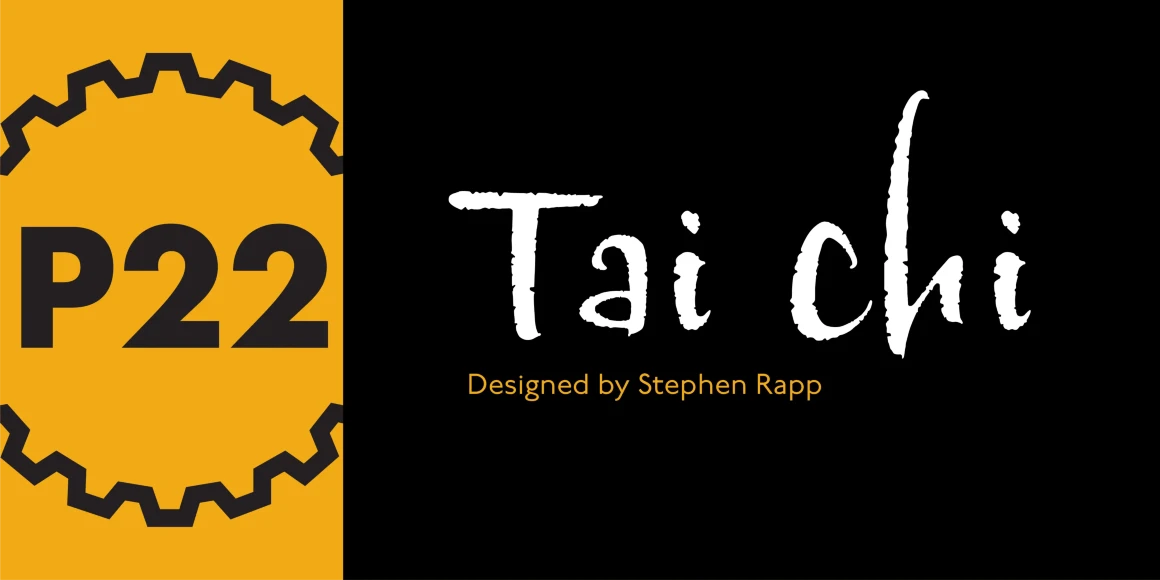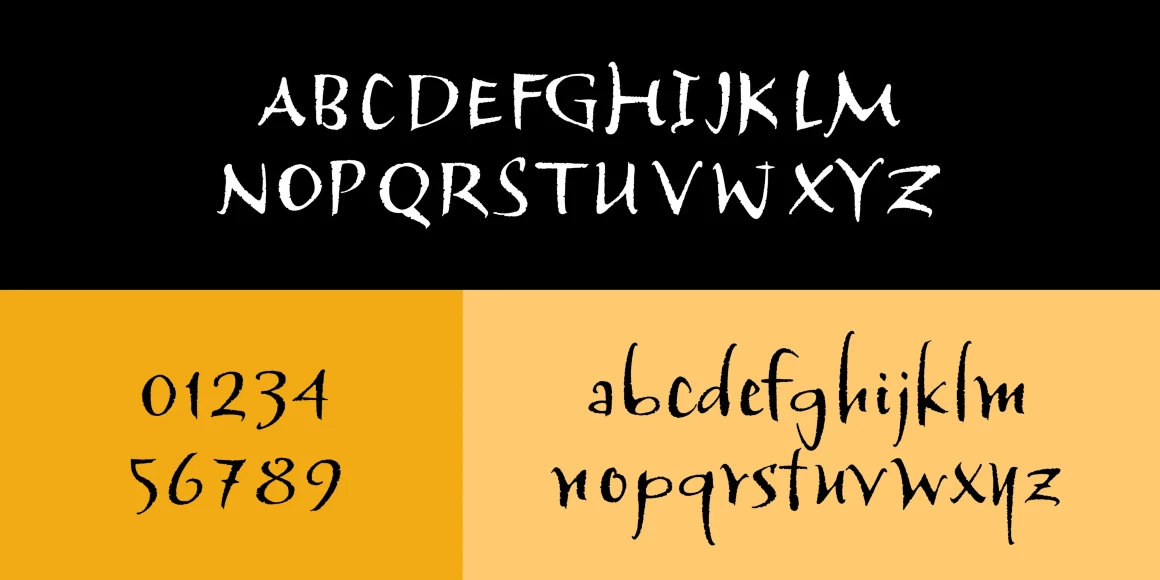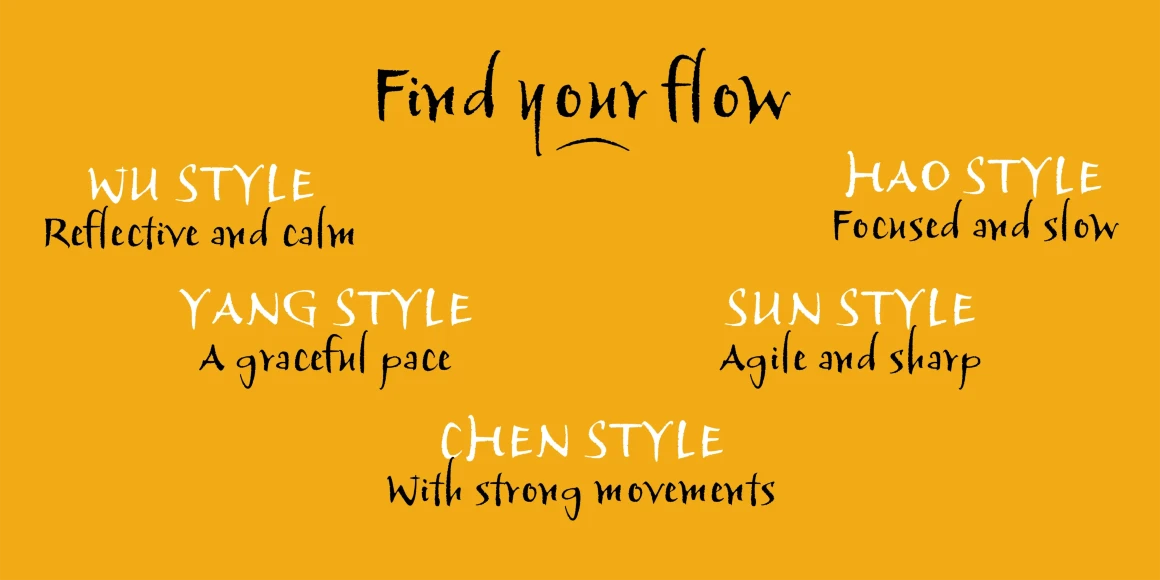
Tai Chi
Tai Chi is a textured calligraphic script. What distinquishes it from other scripts can be found in its movement. Individual characters stand poised in a vertical zen like balance while displaying an inner rhythm that makes them appear to dance along the line.
Designed by Stephen Rapp